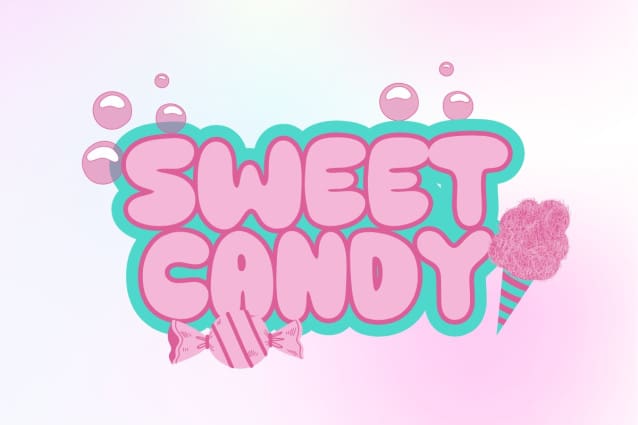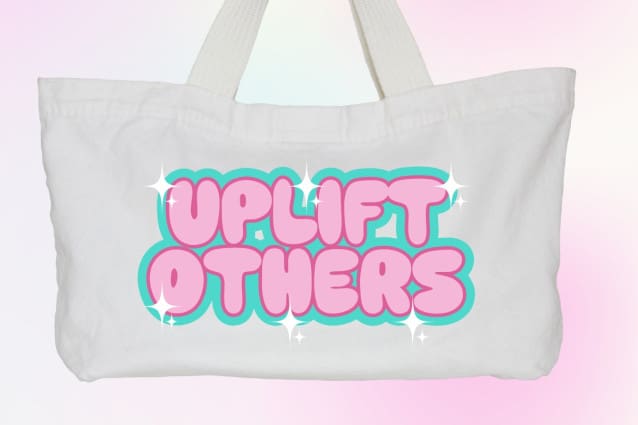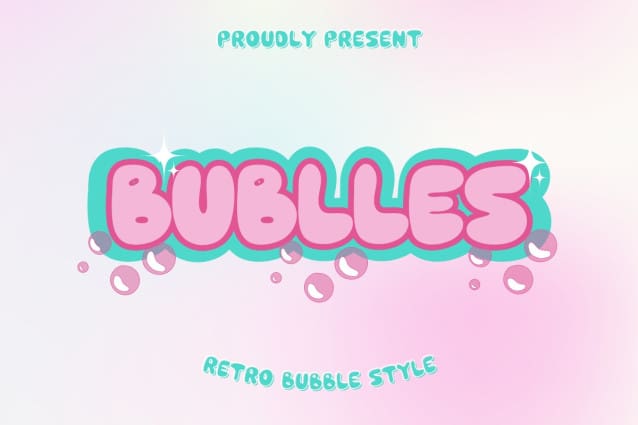
Bublles Display Font
Bublles Display Font – Retro Bubble Font. A display font created in a cute bubble style. with an increasingly stunning retro style. This font is great for posters, product packaging, quotes, interior design, t-shirts, graphic clothing, online banners, social media, greeting cards, initials, logo designs, event banners, exhibitions, book covers, ebook covers, article titles, blogs title, cricut, branding, business, and many other creative ideas.